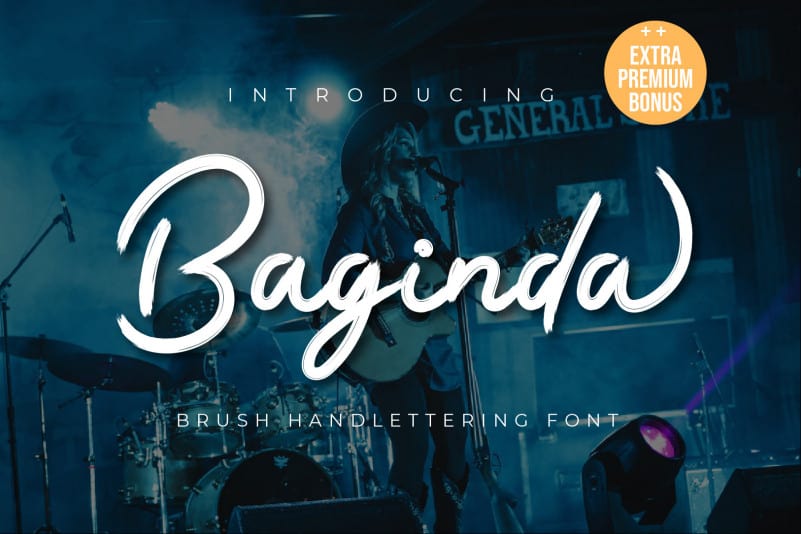
Baginda Script Font
Baginda Script Font is a delicate and elegant handwritten typeface. Its distinct and well rounded letters make this font a masterpiece. Fall in love with its incredibly versatile style and use it to create spectacular designs!